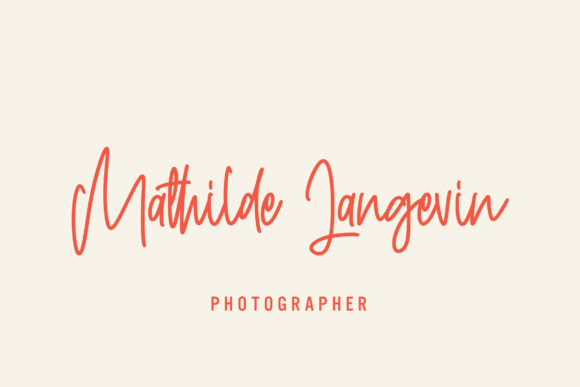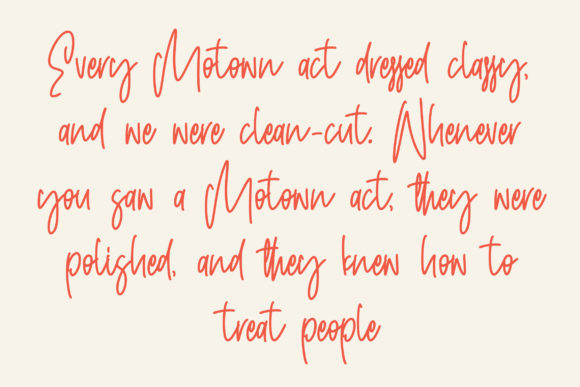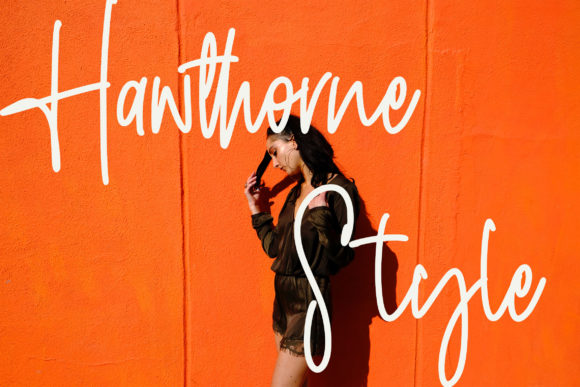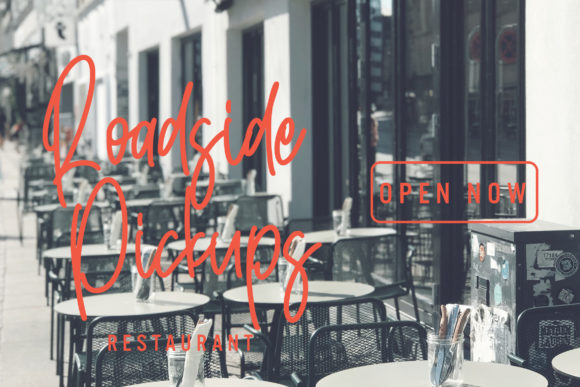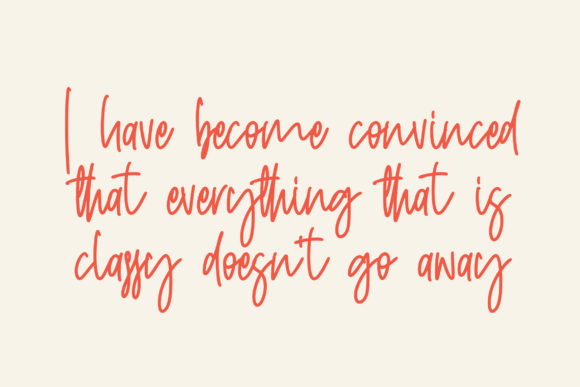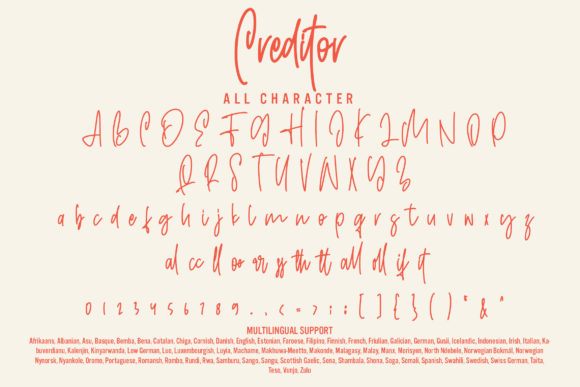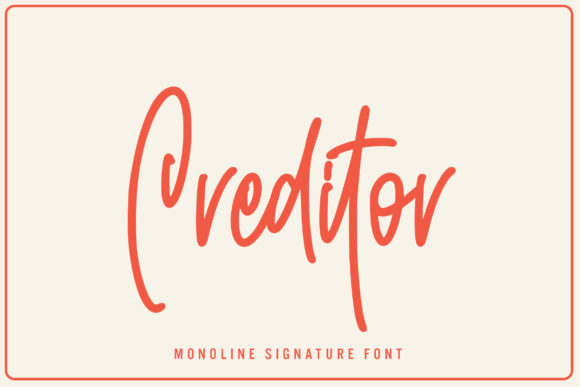
Introducing Creditor Font: The Relaxed and Casual Script Font You Need
Are you tired of using the same old fonts in your designs? Do you want to add a touch of personality and whimsy to your creations? Look no further than Creditor Font, a relaxed and casual script font that’s perfect for a wide range of projects. In this article, we’ll take a closer look at Creditor Font, its features, and how it can enhance your font library.
What is Creditor Font?
Creditor Font is a beautifully designed script font that’s perfect for adding a personal touch to your designs. With its relaxed and casual vibe, this font is ideal for creating eye-catching headings, titles, and text that stands out from the crowd. Whether you’re working on a branding project, a craft project, or just want to add some personality to your digital creations, Creditor Font is a wonderful asset to have in your font library.
Key Features of Creditor Font
So, what makes Creditor Font so special? Here are some of its key features:
- Relaxed and Casual Style: Creditor Font has a laid-back, effortless vibe that’s perfect for creating designs that feel friendly and approachable.
- Script Style: This font features beautiful, flowing script letters that add a touch of elegance and sophistication to your designs.
- Versatile: Creditor Font can be used for a wide range of projects, from branding and advertising to crafting and DIY projects.
- Easy to Read: Despite its casual style, Creditor Font is easy to read, making it perfect for use in body text as well as headings.
How to Use Creditor Font
Creditor Font is incredibly versatile, and can be used in a variety of ways to enhance your designs. Here are a few ideas to get you started:
- Branding and Advertising: Use Creditor Font to create eye-catching logos, headings, and titles that help your brand stand out.
- Crafting and DIY Projects: Add a personal touch to your crafting and DIY projects with Creditor Font, perfect for use on signs, labels, and other materials.
- Digital Creations: Use Creditor Font to add a touch of personality to your digital creations, such as social media graphics, blog posts, and more.
Benefits of Using Creditor Font
So, why should you choose Creditor Font for your next project? Here are just a few benefits of using this amazing font:
- Adds Personality: Creditor Font adds a touch of personality and whimsy to your designs, helping them stand out from the crowd.
- Enhances Readability: Despite its casual style, Creditor Font is easy to read, making it perfect for use in body text as well as headings.
- Increases Versatility: With its relaxed and casual style, Creditor Font can be used for a wide range of projects, from formal to informal.
In conclusion, Creditor Font is a relaxed and casual script font that’s perfect for adding a personal touch to your designs. With its beautiful, flowing script letters and easy-to-read style, this font is ideal for a wide range of projects. Whether you’re a designer, crafter, or just someone who loves to create, Creditor Font is a wonderful asset to have in your font library. So why wait? Download Creditor Font today and start enhancing your designs with its unique and charming style!